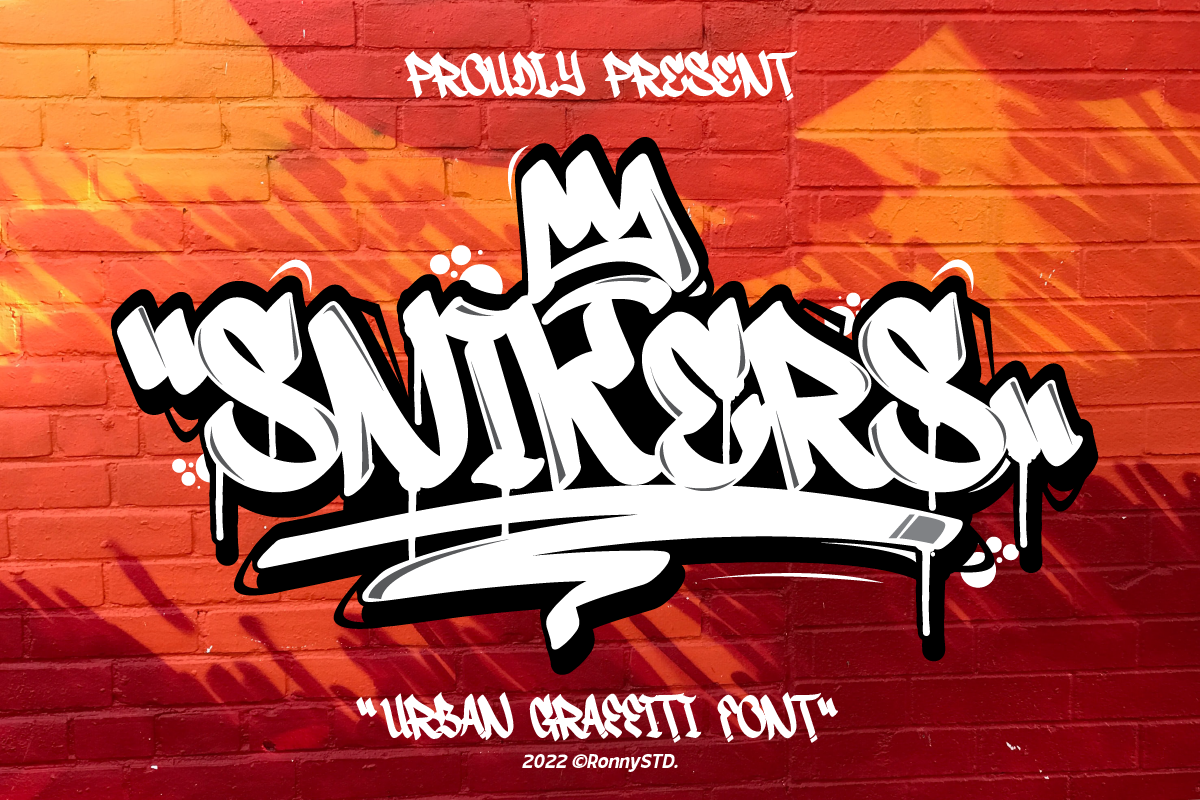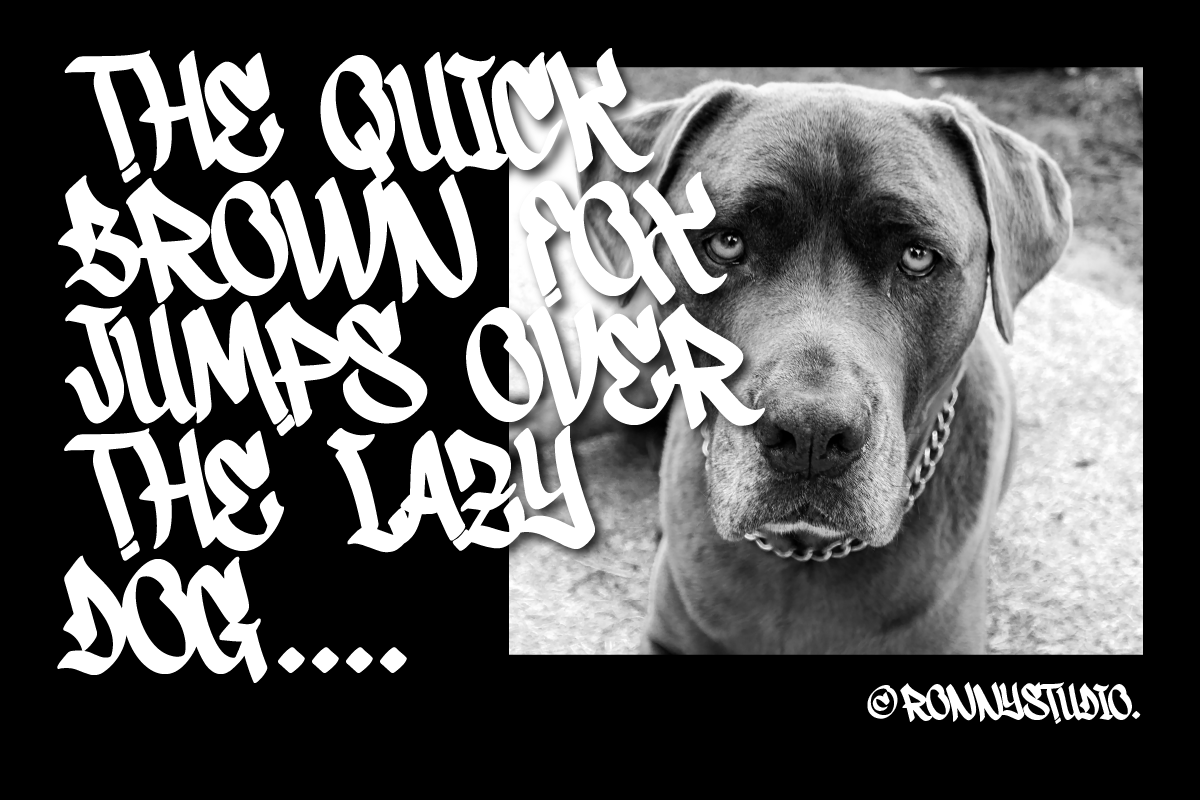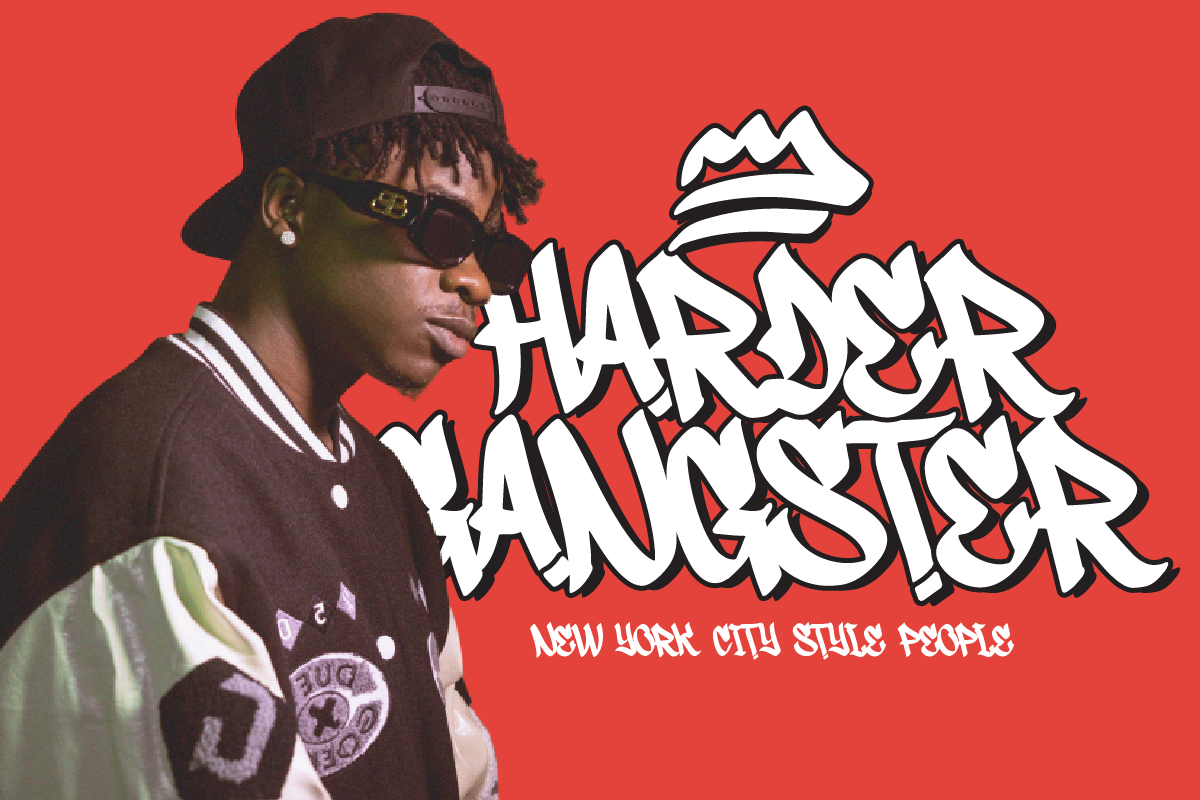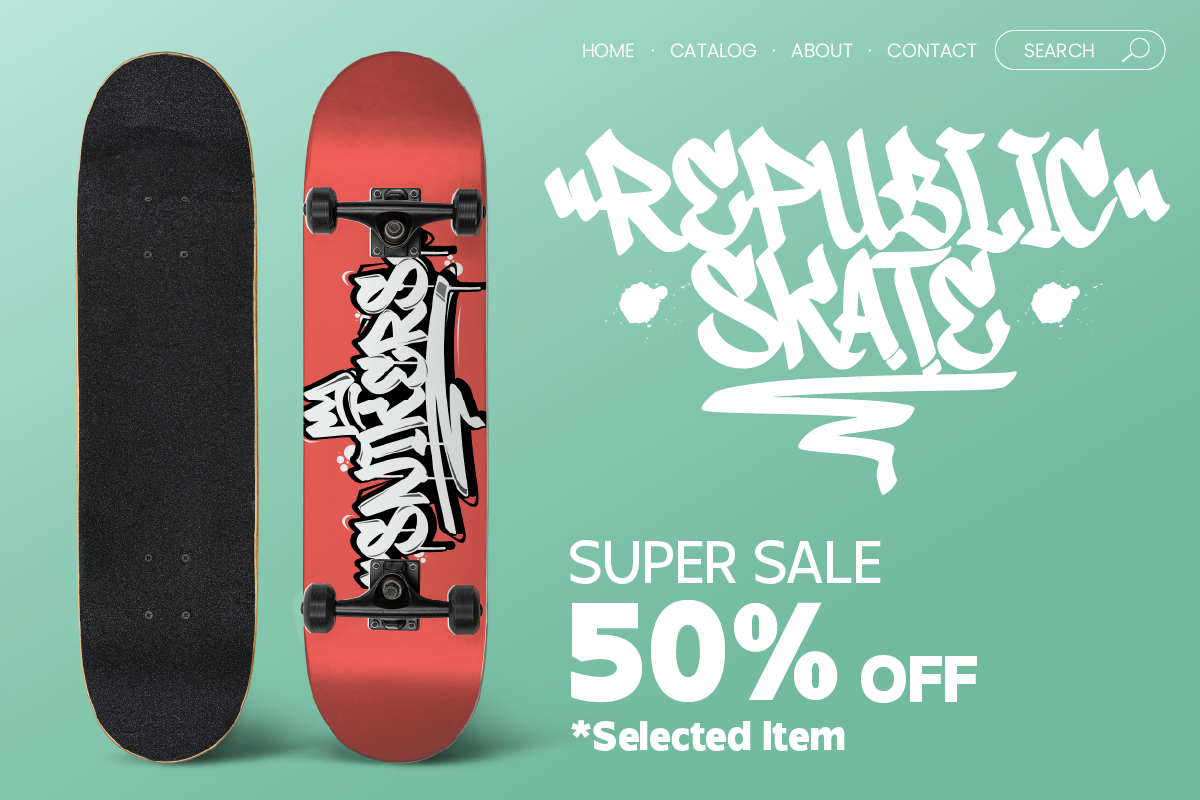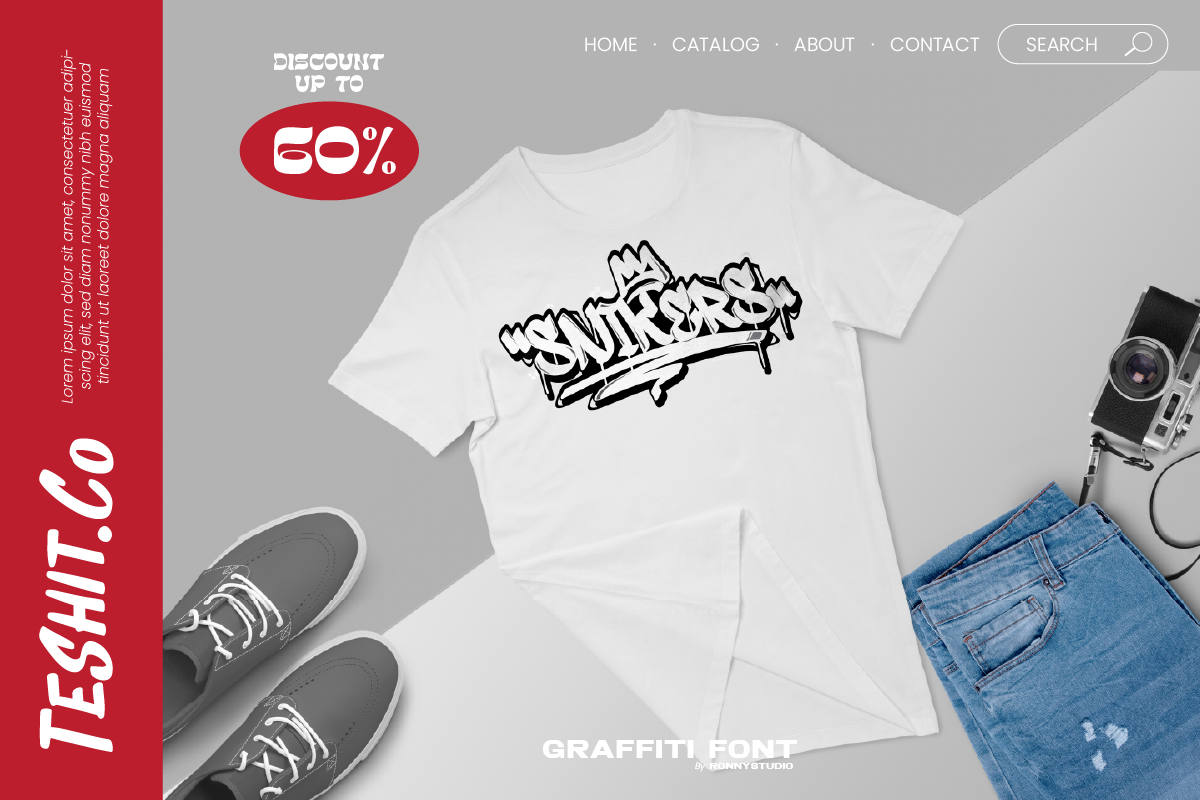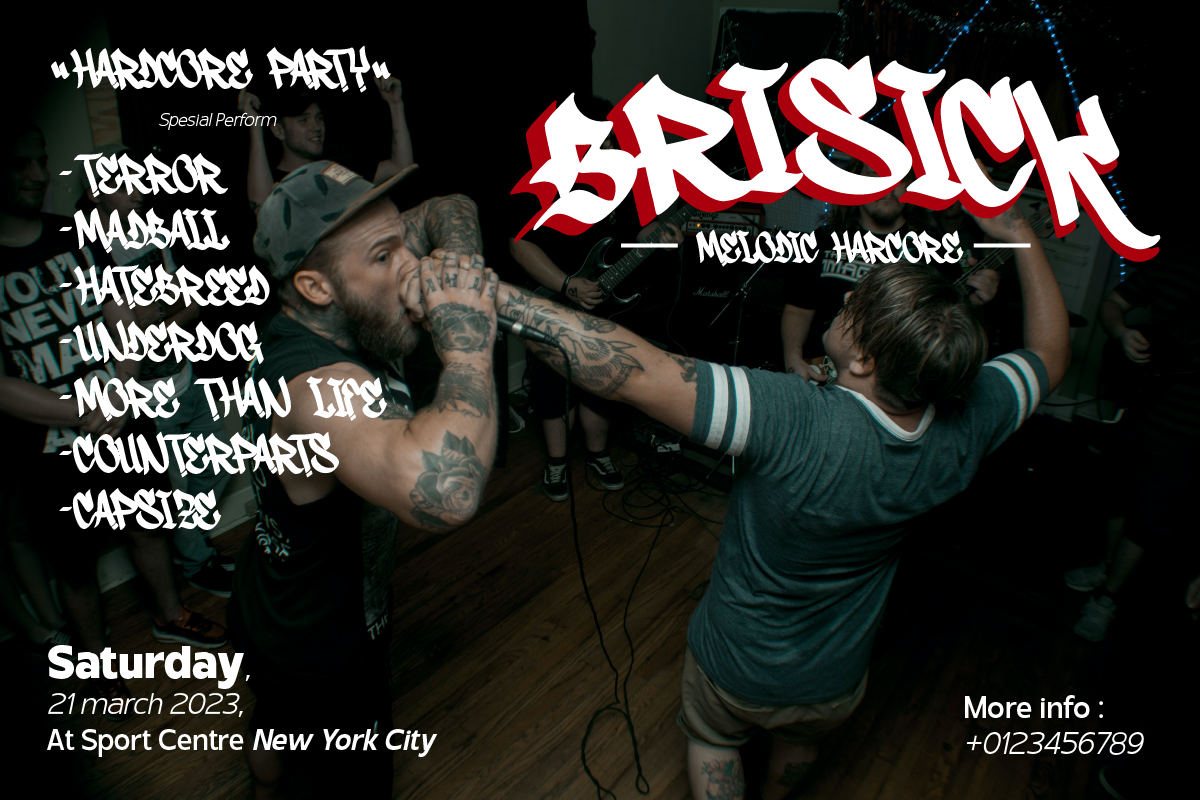
Snikers Bold Urban Graffiti Font
Introducing Snikers, an urban graffiti font with bold character and raw street-style energy. Designed with the spirit of rebellious expression, Snikers features dynamic letterforms and edgy details that echo the authenticity of hand-tagged graffiti.
Perfect for music posters, streetwear branding, album covers, merchandise, or any project that needs an expressive and urban voice, this font helps you bring the street to your design.
- Urban Graffiti Style – Inspired by real street art with strong personality and bold strokes.
- Full Character Set – Includes uppercase, lowercase, numbers, punctuation, and multilingual support.
- PUA Encoded – Access all stylistic alternates and special characters with ease.
- Versatile Use – Ideal for branding, hip-hop culture visuals, event posters, and creative apparel.
- Graffiti-style logo design and branding
- Album covers, hip-hop posters, and event flyers
- Streetwear, merchandise, and t-shirt graphics
- Stickers, skate culture design, and youth-oriented campaigns
- Social media visuals with bold personality
- Any project that needs loud, confident urban expression
Snikers helps your message hit hard—just like a fresh spray tag on a concrete wall.